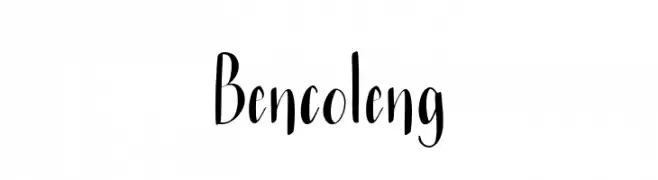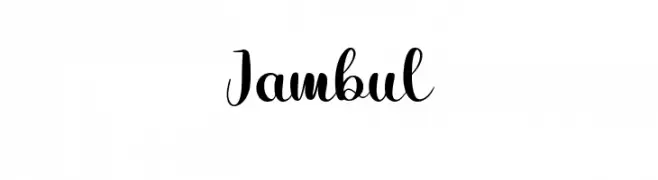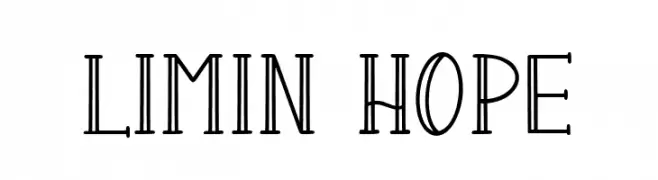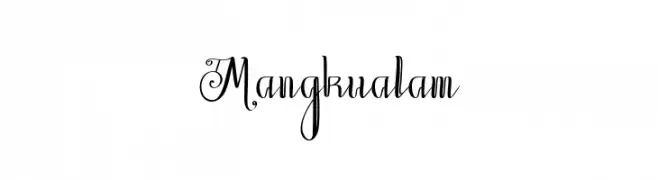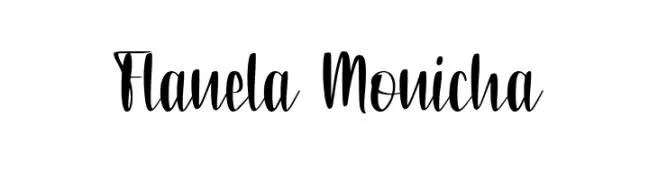
A playful, handwritten font with dynamic strokes and a whimsical style.
A playful and elegant script font with a modern twist.
A decorative font with tall, slender characters and a geometric, vintage-modern style.
A playful and flowing script font with smooth, connected strokes and rounded forms.
An elegant and decorative script font with intricate flourishes and loops.
A lively and elegant script font with flowing, cursive letterforms.
A graceful and elegant script font with flowing cursive letters and intricate swashes.
An elegant and flowing script font with dynamic, cursive letterforms.
A dynamic, brush-style font with a hand-drawn, calligraphic appearance.
A dynamic and elegant script font with flowing, interconnected letters.